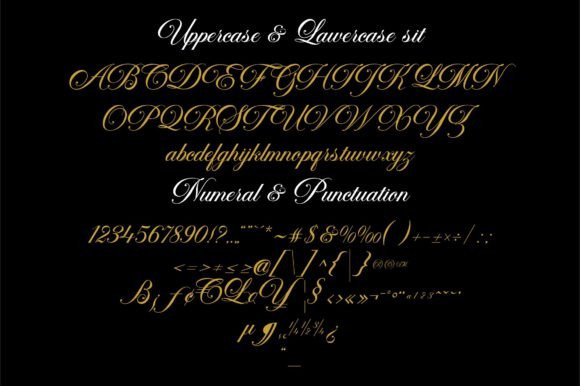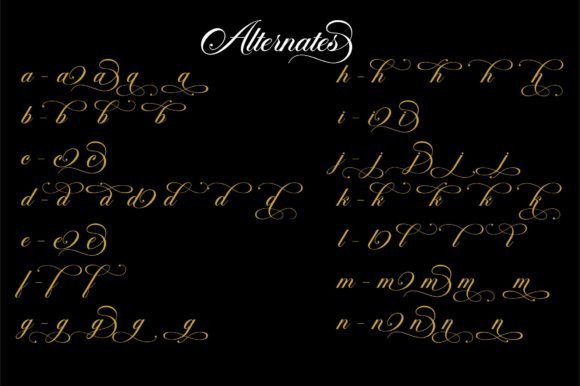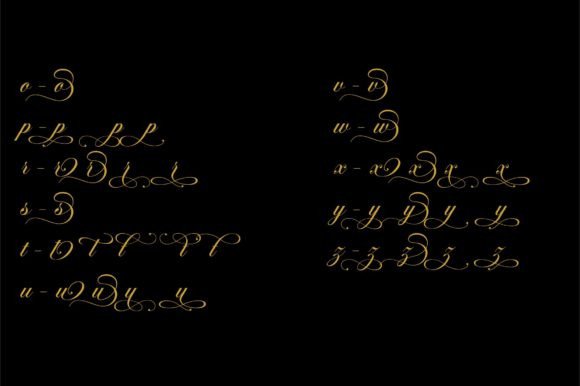
Tempting Font
Tempting is a dazzling script font. This font is neatly crafted and highly detailed. Whatever the topic, this font will be a wonderful asset to your font library, as it has the potential to enhance any creation.
This font is PUA encoded which means you can access all glyphs and swashes with ease!